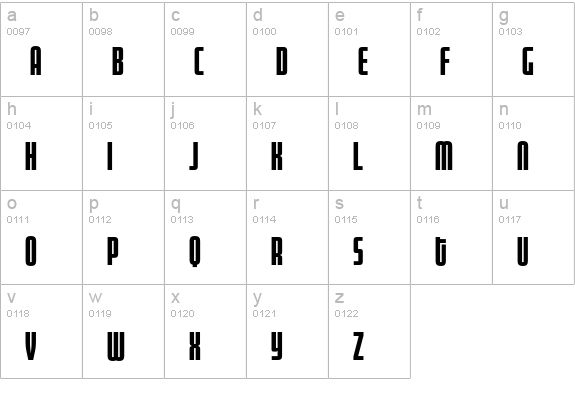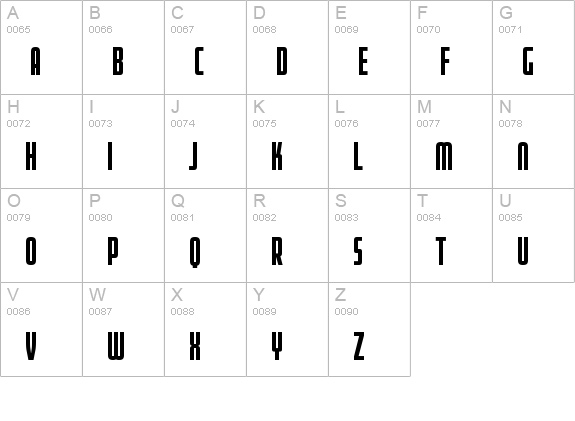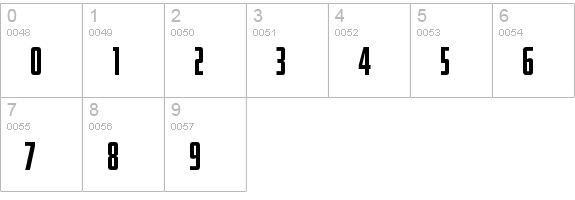
Introducing MorganTw3 font, a versatile and modern typeface that is sure to make your designs stand out. This font features a unique blend of sleek lines and sharp edges, giving it a contemporary and stylish appearance. Perfect for a wide range of projects, from branding to advertising to social media graphics, MorganTw3 is a must-have addition to any designer's toolkit. What makes MorganTw3 font even more appealing is that it is available for free download at FontsMarket.com. Yes, you read that right - this high-quality font can be yours at no cost, allowing you to elevate your designs without breaking the bank. So why wait? Download MorganTw3 font today and unleash your creativity with this stunning typeface.